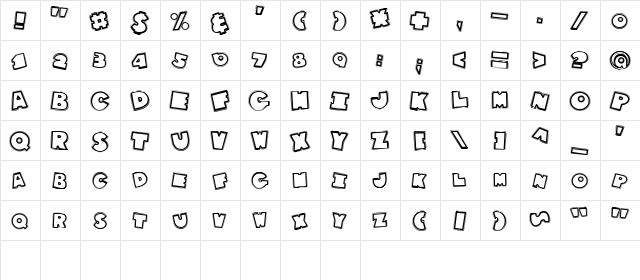
Lindsay Hunky Chunky Funk Regular
Design Context for Lindsay Hunky Chunky Funk Typeface
Lindsay Hunky Chunky Funk has an approachable, lighthearted character — its loose, expressive forms are well-suited to children's content, casual branding, and fun-first design.
Great for children's books, toy packaging, family event branding, and casual consumer-facing design.
Font Pairing: Pairs well with a rounded or humanist sans for body copy, maintaining the friendly tone without relying on Lindsay Hunky Chunky Funk to carry extended reading.
Pro Tip: Avoid using Lindsay Hunky Chunky Funk for long passages of text — it works best for headlines, labels, and short calls to action.